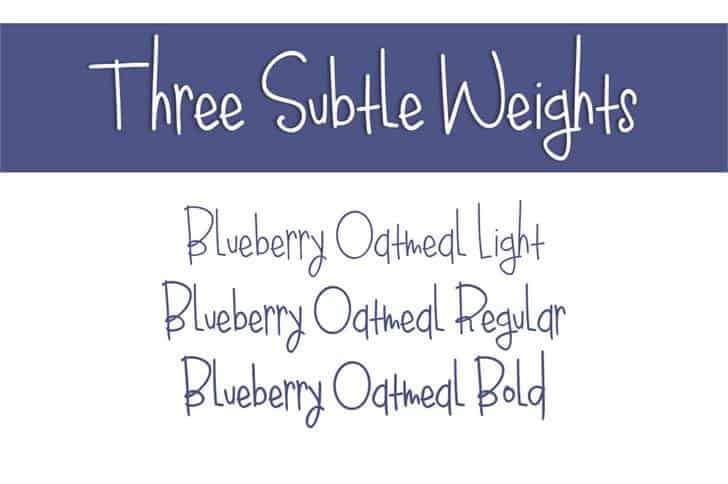
blueberry oatmeal light
Explore the Fresh Aesthetic of Blueberry Oatmeal Light Font
Blueberry Oatmeal Light, designed by Emily Thomson in 2022, combines a refreshing aesthetic with a modern touch. This font is tailored for a wide range of applications, including web design, branding, and print materials, bringing a sense of cleanliness and style to every project. Its minimalist design and light weight make it especially appealing for contemporary layouts and creative endeavors.
Unique Features and Formats of Blueberry Oatmeal Light Font
The Inspiration Behind Blueberry Oatmeal Light Font
Inspired by the organic shapes and playful elegance found in nature, Blueberry Oatmeal Light was created to evoke feelings of freshness and vitality. Emily Thomson’s design reflects a commitment to quality and a modern approach, making it an ideal choice for designers looking to enhance visual storytelling.
Ideal Use Cases for Blueberry Oatmeal Light Font
This font excels in projects that call for a modern and airy feel. It’s well-suited for branding, minimalist websites, creative marketing, and editorial designs. With its versatile nature, Blueberry Oatmeal Light Font effectively communicates beauty and simplicity, perfect for any professional looking to elevate their work.